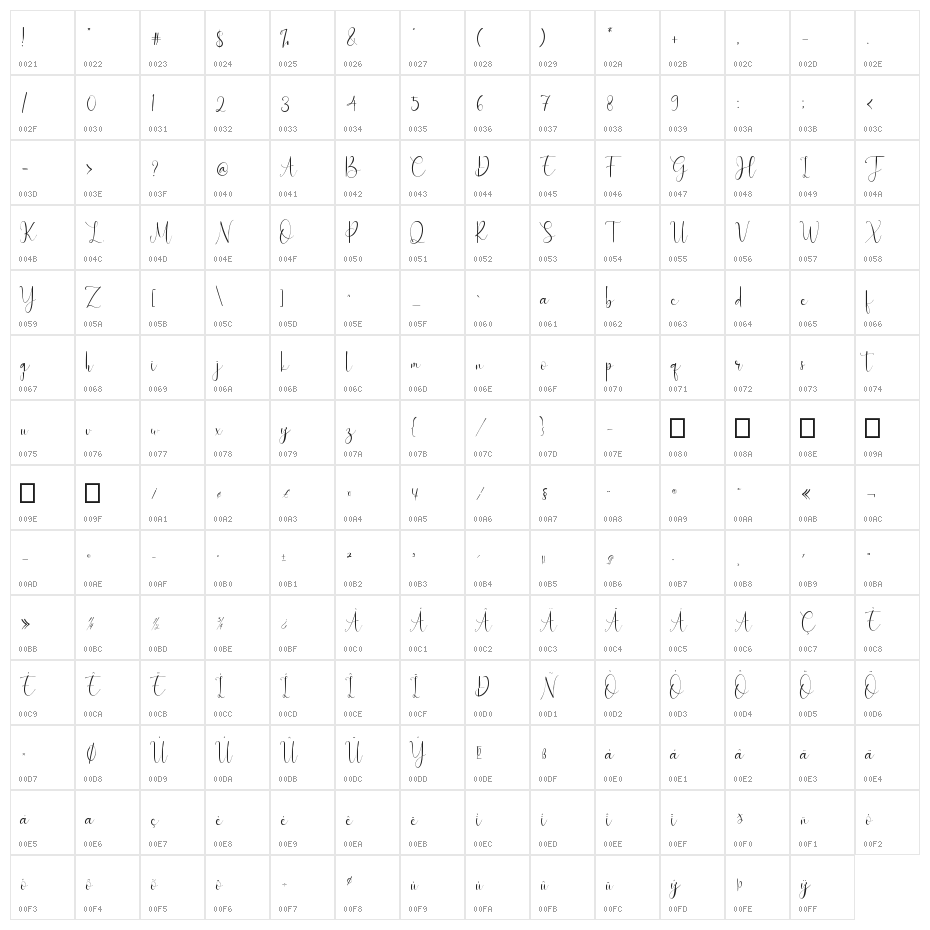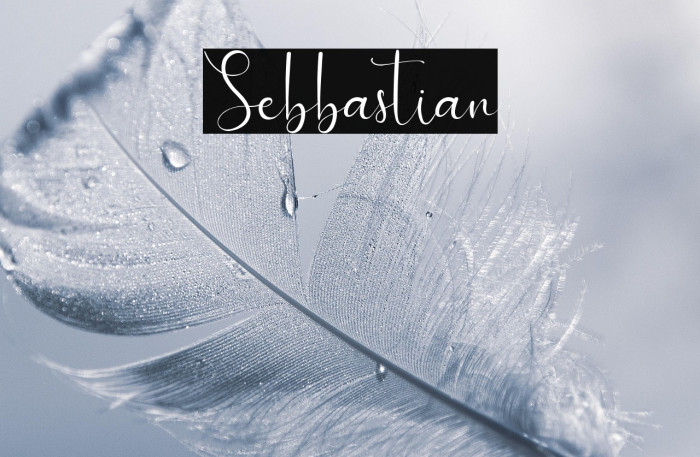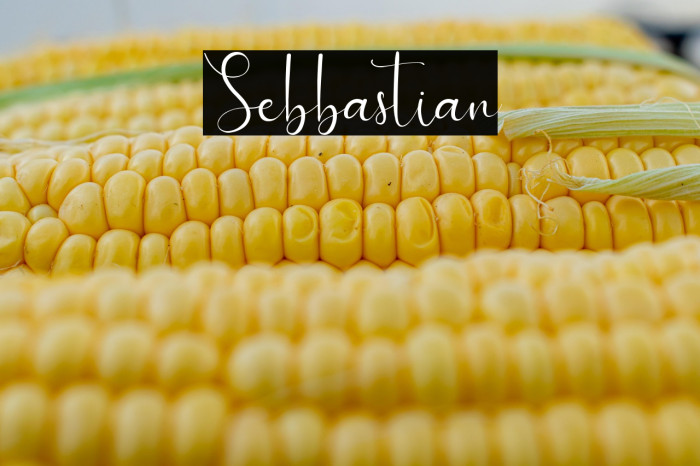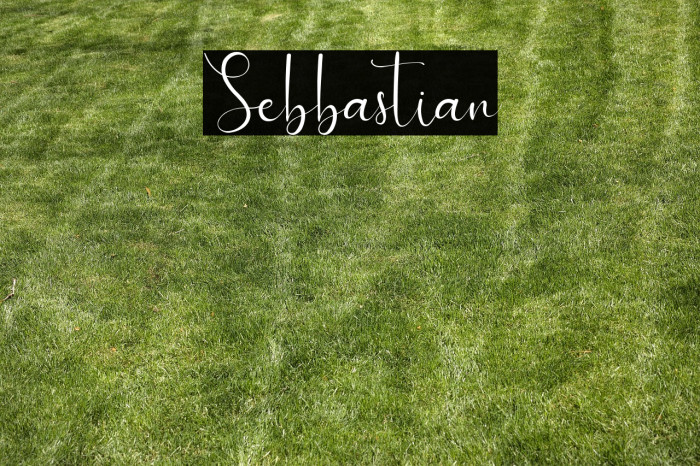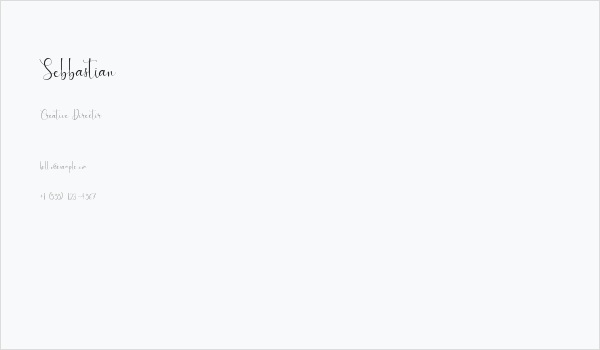
Sebbastian Font
Sebbastian Description
This elegant script font features a flowing, cursive style with delicate, elongated strokes and graceful curves. The uppercase letters are particularly ornate, with sweeping lines that give a sense of movement and fluidity. The lowercase letters maintain a consistent style, offering a harmonious blend of simplicity and sophistication. The numerals are clear and legible, while the special characters are designed to complement the overall aesthetic. This font exudes a sense of elegance and refinement, making it suitable for formal and decorative applications.